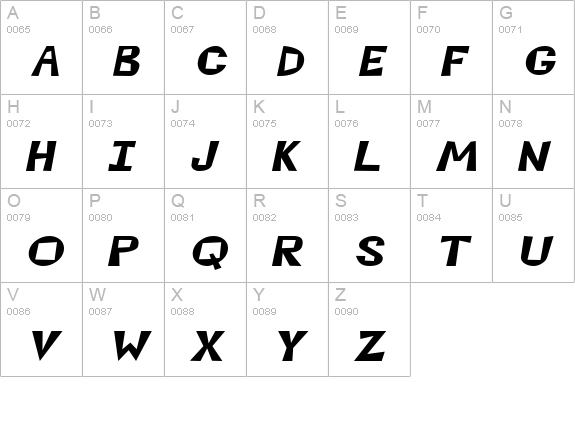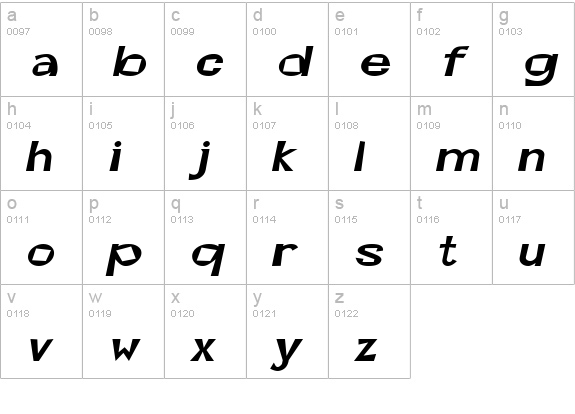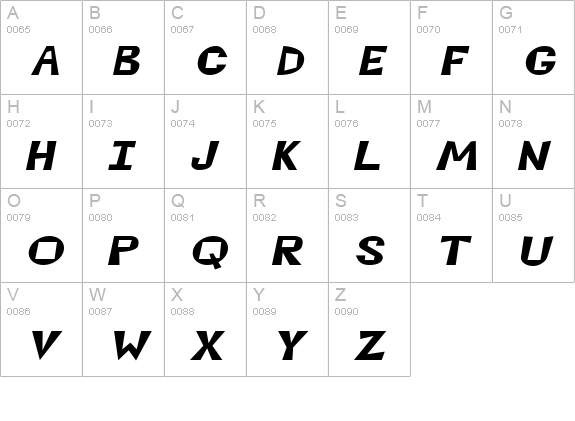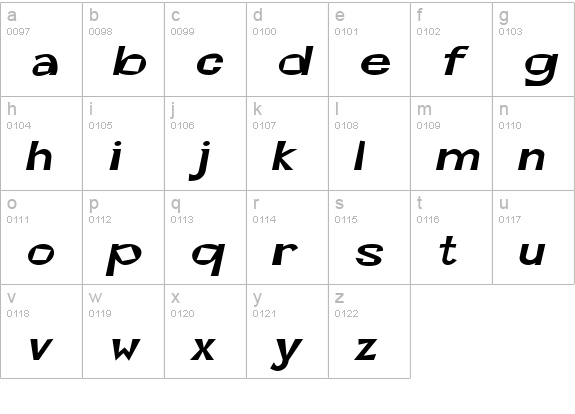
MagooExtended Italic Font Details
MagooExtended Italic is a distinctive, italic variant in the MagooExtended typeface family \xE2\x80\x94 well suited to design and typography projects.
MagooExtended Italic font is a sleek and stylish typeface that exudes elegance and sophistication. With its slanted and refined letterforms, this font is perfect for adding a touch of flair to any design project. The unique and contemporary design of MagooExtended Italic font makes it stand out from the crowd. Its elongated and slightly curvy letterforms create a sense of movement and fluidity, giving your text a dynamic and eye-catching appearance. This font is not only visually stunning, but it also offers great versatility. Whether you're designing a logo, website, or print materials, MagooExtended Italic font can adapt to any style or theme. Its clean and legible characters ensure that your message is conveyed with clarity and impact. One of the best things about MagooExtended Italic font is that it is free. Yes, that's right – you can download this amazing font for free at FontsMarket.com. This means that you can use it in personal and commercial projects without any restrictions or limitations. So why wait? Take your designs to the next level with MagooExtended Italic font. Download it today from FontsMarket.com and unlock a world of endless creative possibilities.